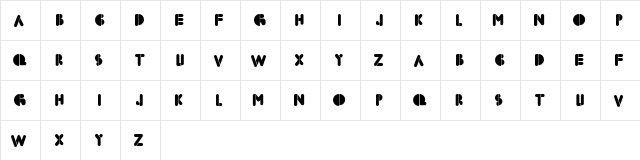
BoldFace Stencil Regular
Design Context for BoldFace Stencil Typeface
BoldFace Stencil has the rough pragmatism of spray-painted stencil signage, adding a raw, street-level authenticity to designs. Its bold stroke weight gives it real presence on the page.
Ideal for industrial branding, streetwear, military-adjacent aesthetics, and urban signage projects.
Pro Tip: Pair BoldFace Stencil with raw, utilitarian design elements — exposed concrete textures, flat colour, and minimal ornamentation suit it well.